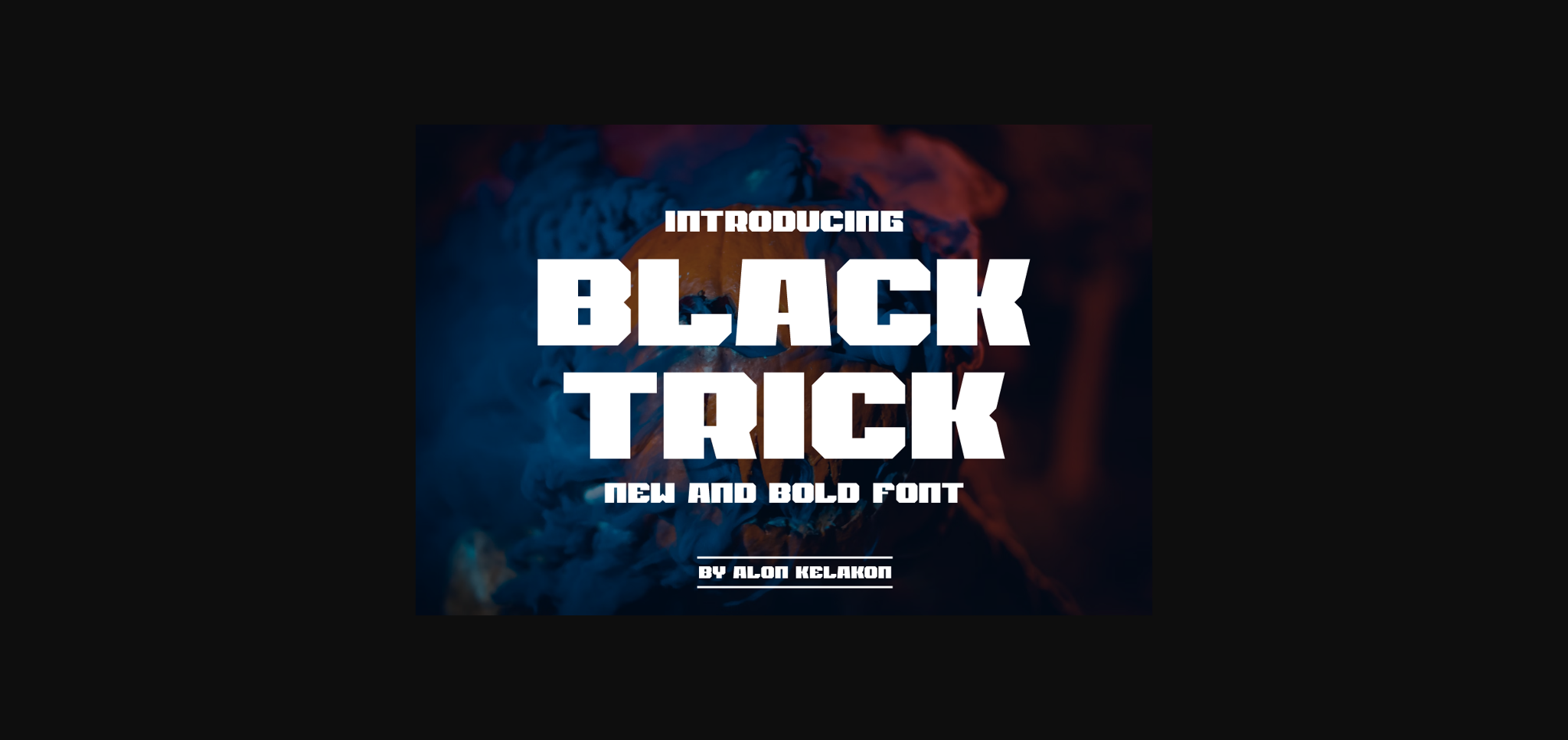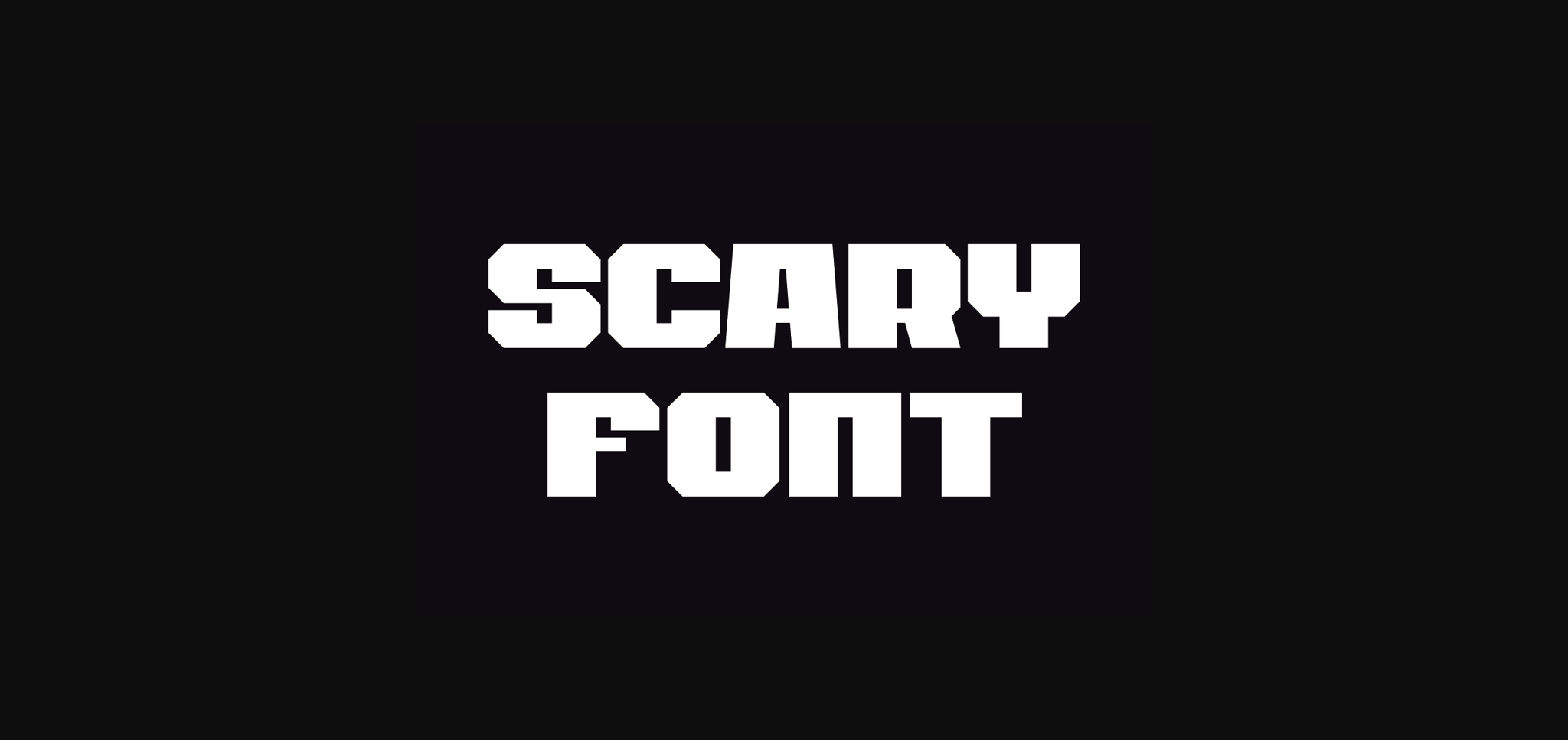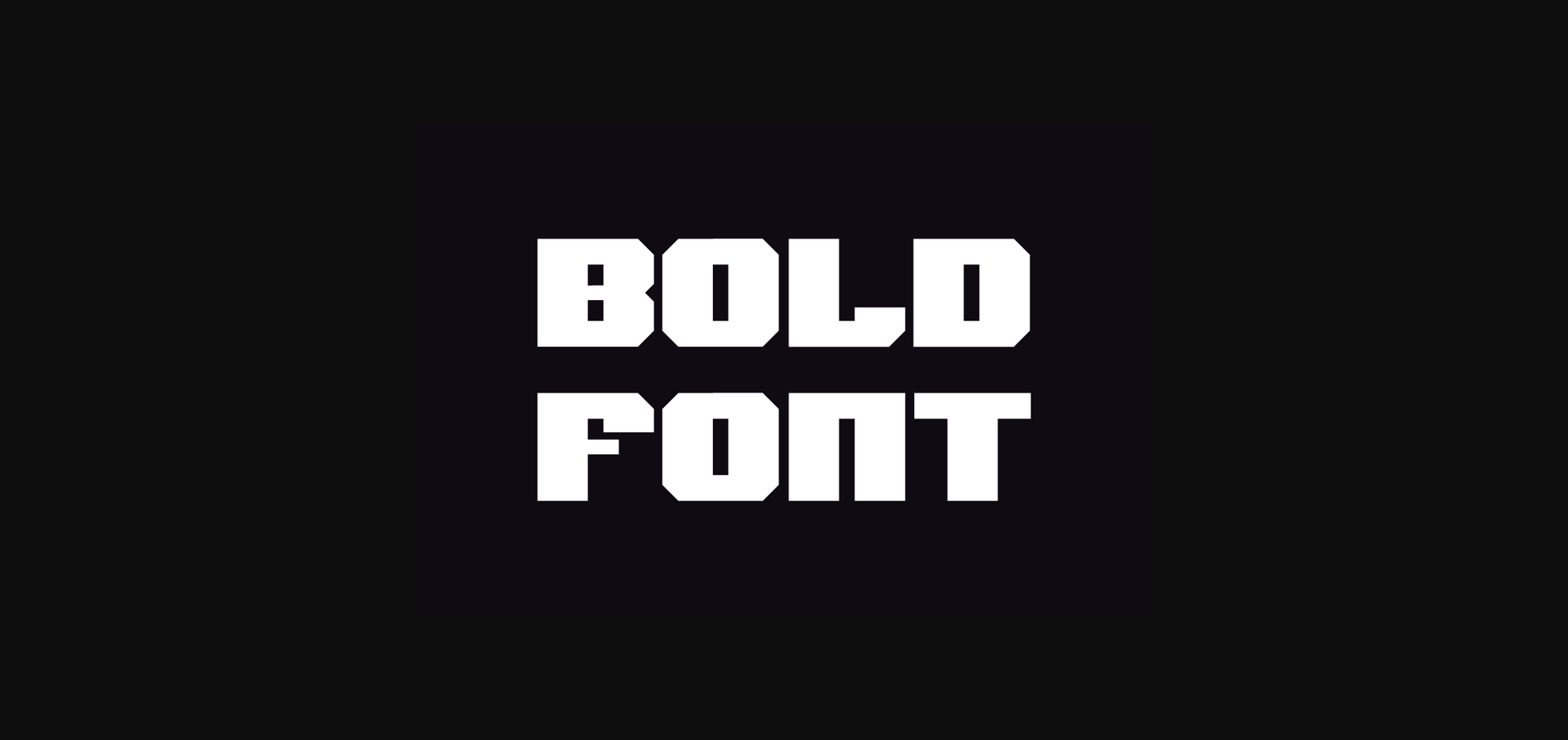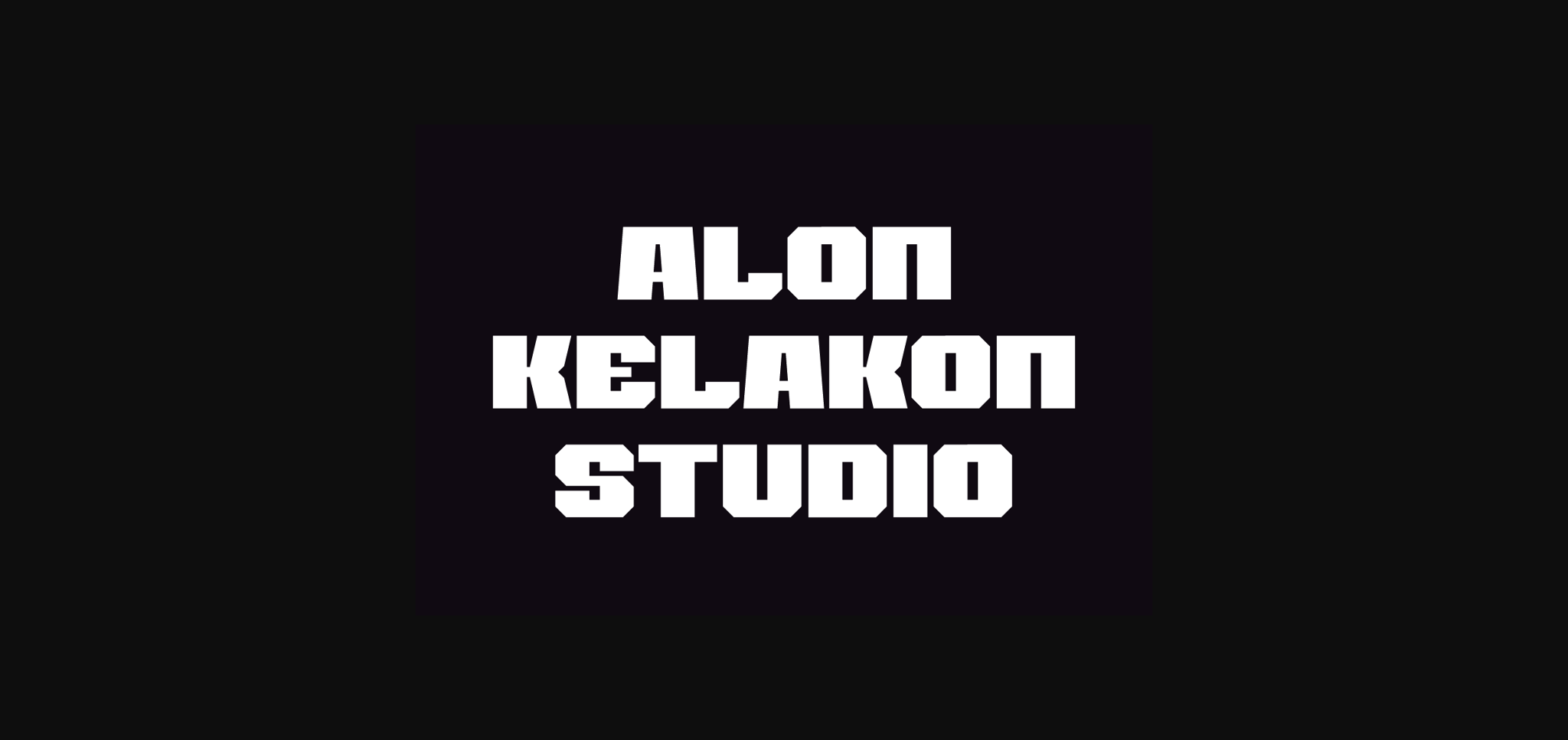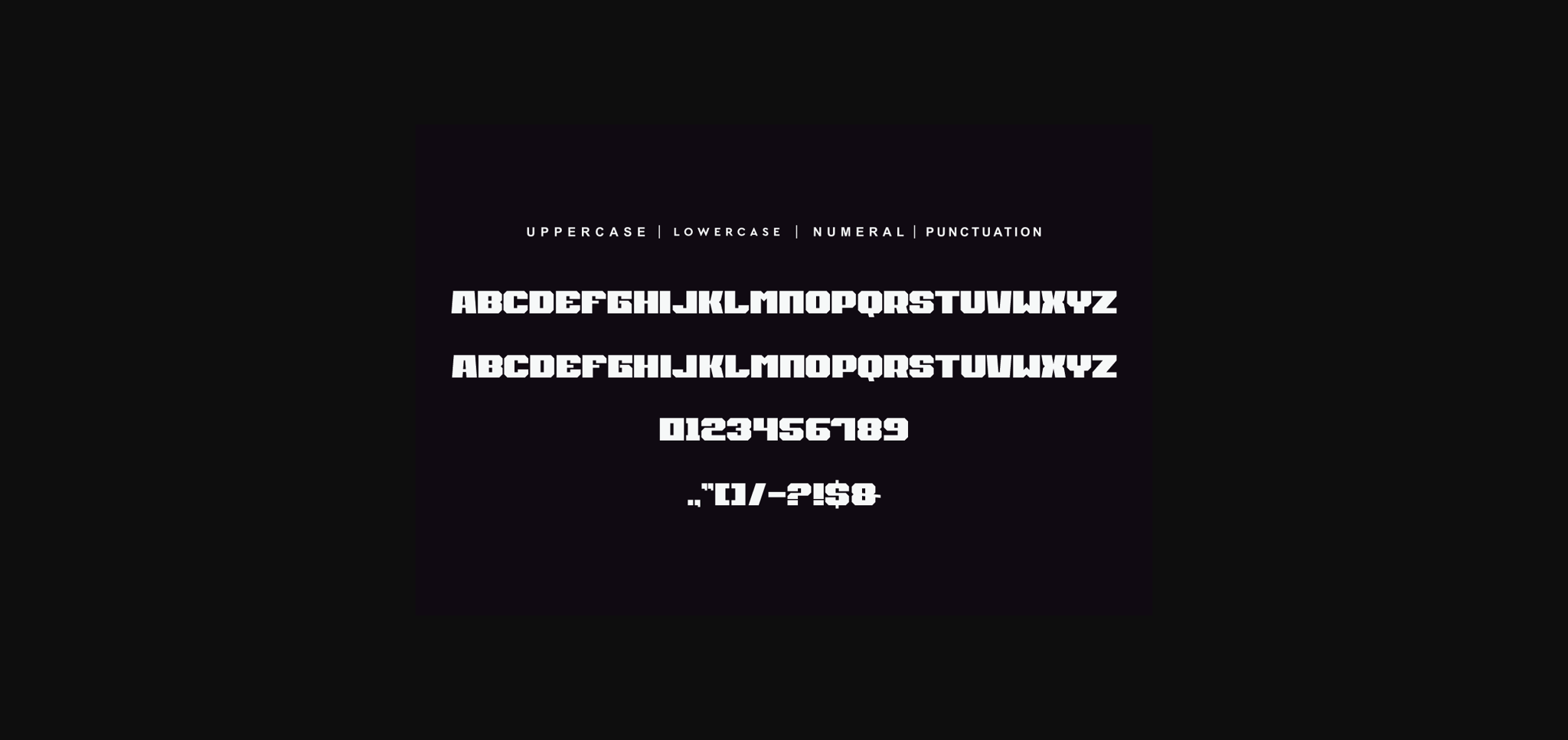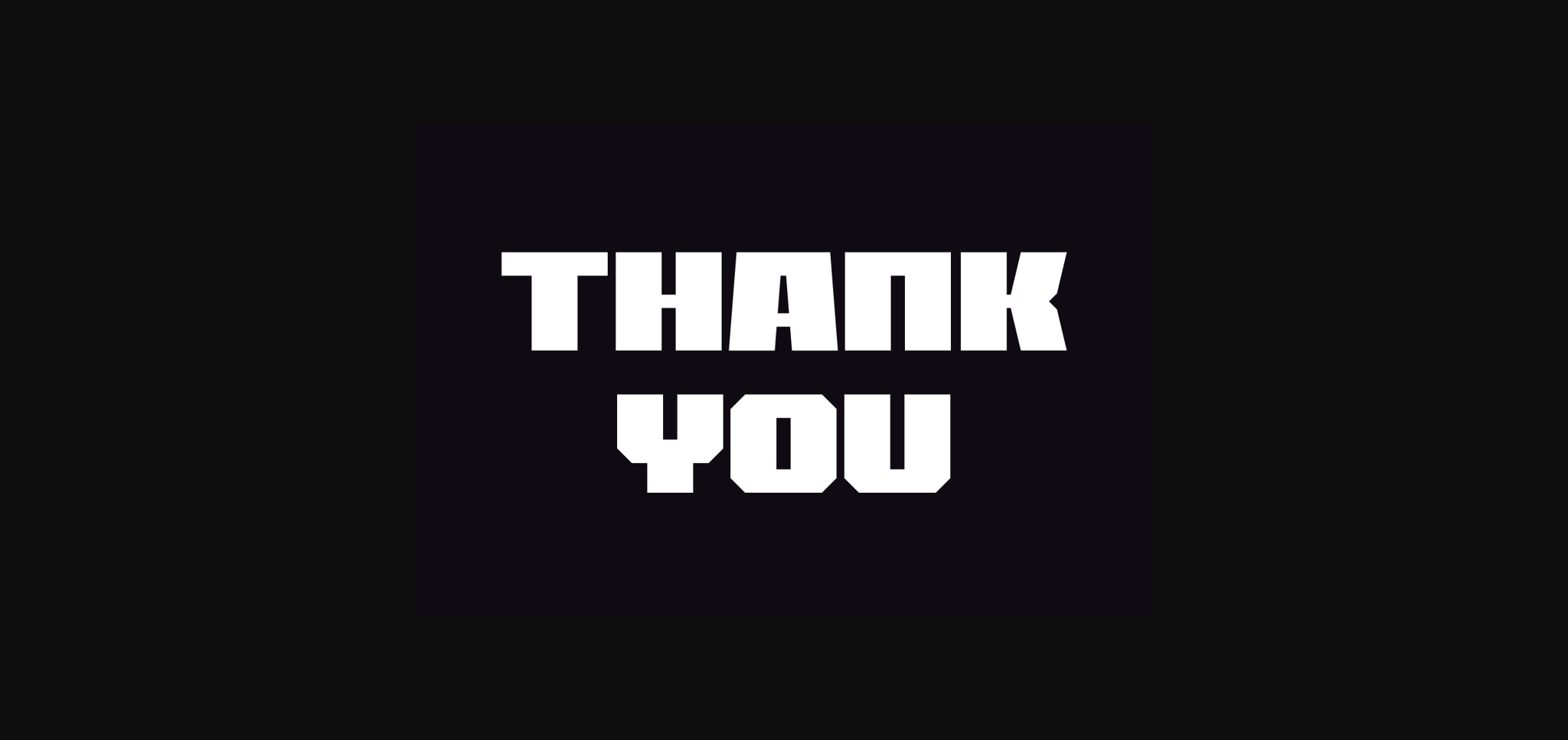
Black Trick Font
About Black Trick Font
Black Trick Font is bold and expressive. Its thick and solid lines make it easy to read and its conservative bends aren’t overwhelming on the eyes. A balanced fusion of playful and professional, there are a ton of design projects this font will be perfect for.